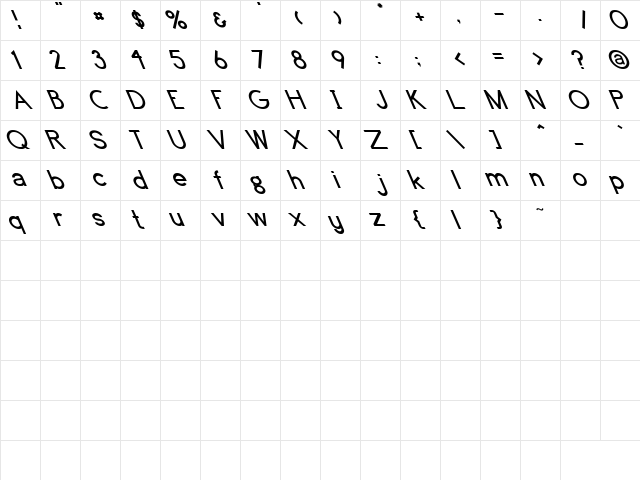
Brassfield Extreem Lefty Regular
Design Context for Brassfield Extreem Lefty Typeface
Brassfield Extreem Lefty offers clean, dependable letterforms without strong stylistic allegiance, making it a practical choice for designers who need flexibility.
Pro Tip: Use Brassfield Extreem Lefty in both headline and body roles to test its range before committing to a single application.